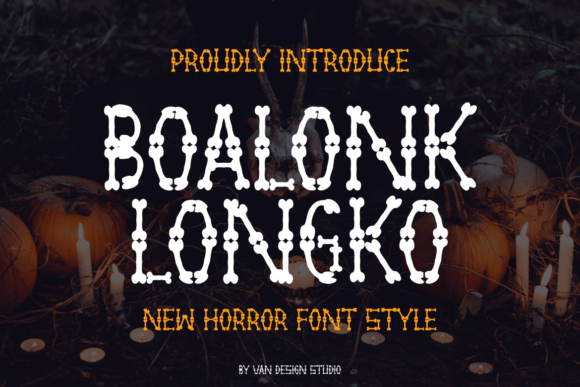
The Magical World of Boalonk Longko Font
I’ll never forget the design project that led me to discover the enchanting Boalonk Longko font. I was working on a whimsical children’s book, and my client requested a font that would transport their story to a magical realm. As I scoured the internet for the perfect font, I stumbled upon Boalonk Longko, and it was love at first sight! ✨
An Honest Review of Boalonk Longko
• ✨ Unique and modern design that adds a touch of magic to any project
• 🎨 Versatile and suitable for a wide range of design projects, from children’s books to branding and packaging
• 💫 Supports multiple languages and OpenType features
While Boalonk Longko is an amazing font, there are a few things to keep in mind: 🤔
• ⚠️ Some characters may require manual kerning for optimal spacing
• ⚠️ Limited availability of Cyrillic and non-Latin scripts
3. Experiment with OpenType features, such as ligatures and stylistic alternates, to add visual interest to your text
The Story Behind Boalonk Longko
Boalonk Longko was designed by a talented type designer who drew inspiration from the mystical and magical world of folklore 🌟. With its unique blend of modern and whimsical elements, Boalonk Longko is sure to transport your designs to a world of wonder and enchantment.
Q: What type of projects is Boalonk Longko suitable for?
A: Boalonk Longko is versatile and can be used for a wide range of projects, including children’s books, branding, packaging, and more.
Q: Does Boalonk Longko support OpenType features?
A: Yes, Boalonk Longko supports OpenType features, including ligatures and stylistic alternates.
Q: Is Boalonk Longko easy to read?
A: Yes, Boalonk Longko is highly legible, even at small font sizes, making it perfect for body text and captions.